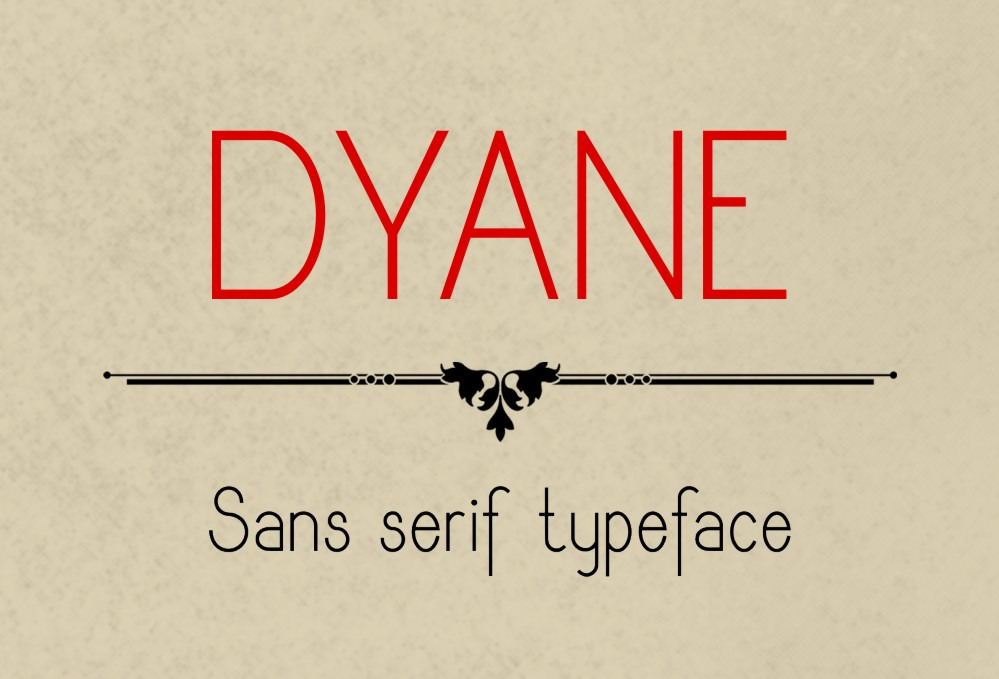
Dyane Font
Introducing Dyane hand crafted sans serif typeface.
Multi purpose use as it has upper cases, lower cases (extended with europian characters), numbers, punctuations, currency symbols and other signs.